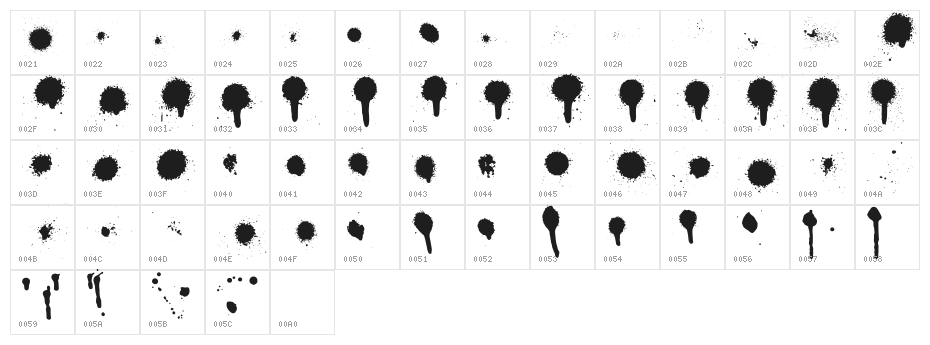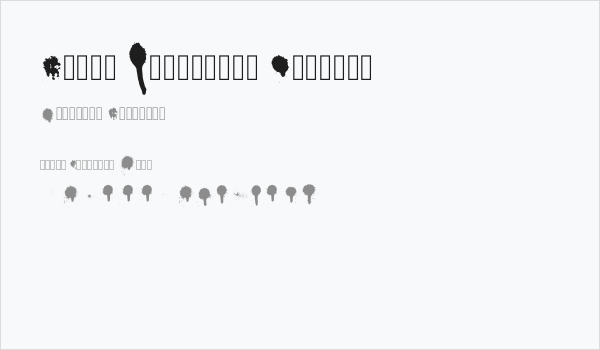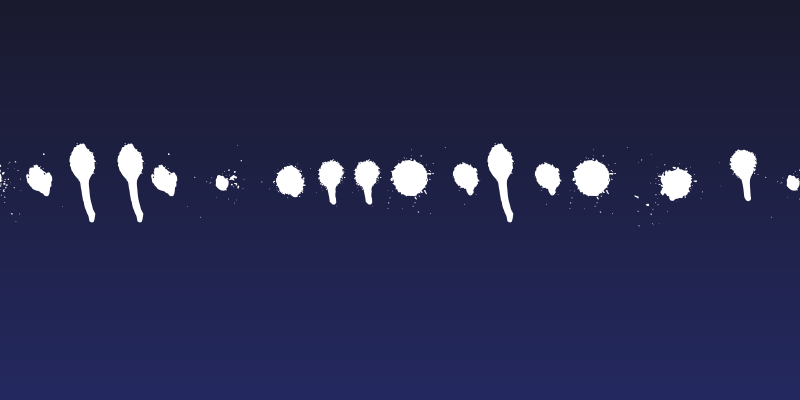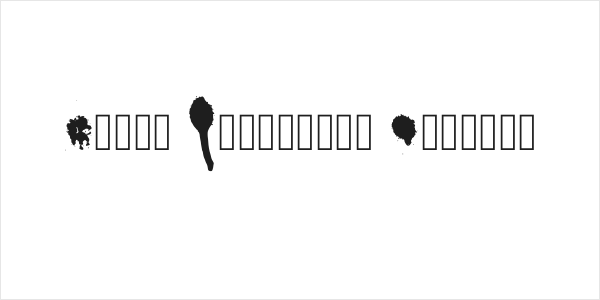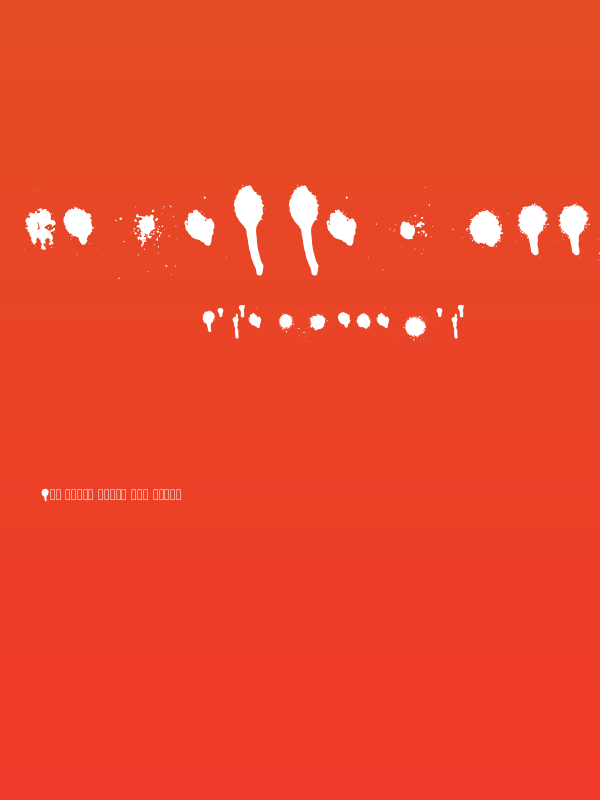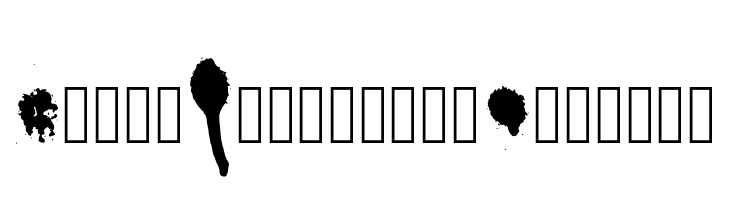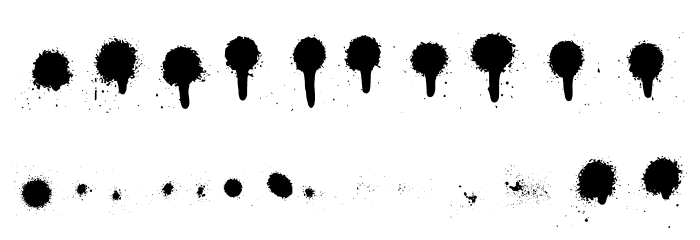
Drips Splatters Regular Font
Drips Splatters Regular Description
This font features a unique and artistic design inspired by ink splatters and drips. Each character is represented by a distinct splatter or drip pattern, creating a dynamic and visually striking appearance. The irregular shapes and varying sizes of the splatters give the font an organic and spontaneous feel, reminiscent of abstract art or graffiti. This style is perfect for projects that require a bold and unconventional look, adding a touch of creativity and chaos. The font lacks traditional letterforms, focusing instead on the expressive potential of splatter patterns.
| Use Case | Logos, Posters, Artistic projects |
| Proposed Projects | Ideal for artistic projects, album covers, posters, and creative branding. |